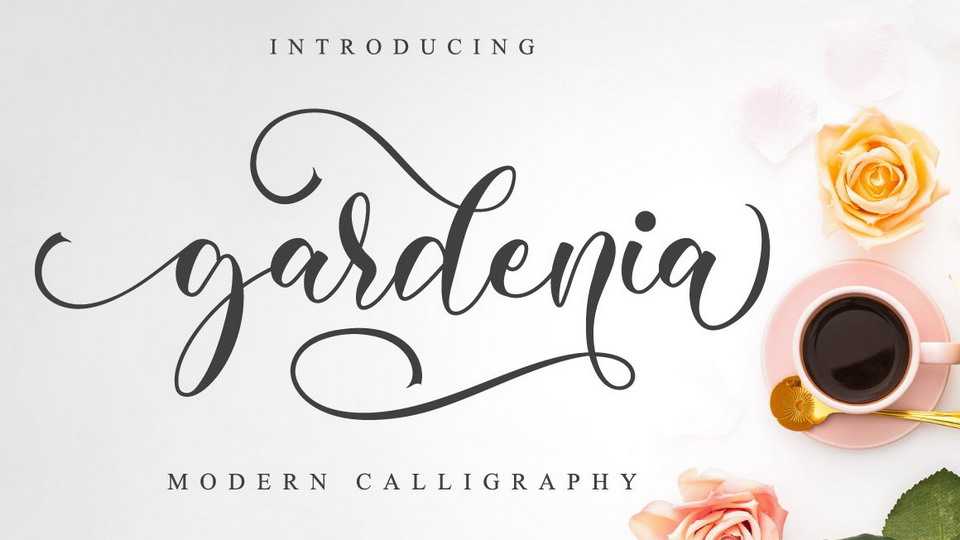
Download Gardenia font, an elegant and flowing handwritten typeface. Gardenia maintains its classy calligraphic influences while feeling contemporary and fresh.
Designer: Nissa Studio